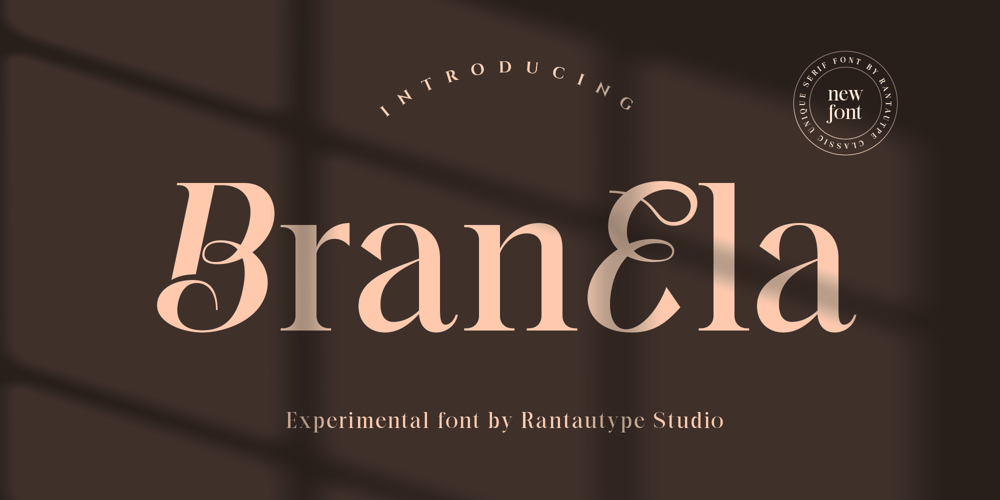
Branela
Branela font
Branela Font Family was designed by Yudi Pratama Chandra and published by RantauType. Branela contains 2 styles and family package options. Branela is a experimental display serif font. Branela come with unique uppercase to mix and max you work more versatility and contemporary appeal.Branela is a beautiful choice for any creative endeavor, chic, lifestyle design such as logos, title, cover, branding, display, magazine and more. Now you have more choice when using Darina for typography.Branela here to make your work to high level!!!Features: Standar letter A-Z and a-z Numberial and Functional Alternate and Ligature Works on PC & Mac Simple installations Accessible in Adobe Illustrator, Adobe Photoshop, Adobe InDesign, even work on Microsoft Word. Fonts include Multilingual Support for: Afrikaans, Albanian, Asu, Basque, Bemba, Bena, Breton, Chiga, Cornish, Dutch, English, Estonian, Filipino, Finnish, Friulian, Galician, Gusii, Indonesian, Irish, Italian, Kabuverdianu, Kalenjin, Kinyarwanda, Luo, Luxembourgish, Luyia, Machame, Makhuwa-Meetto, Makonde, Malagasy, Manx, Morisyen, North, Ndebele, Nyankole, Oromo, Portuguese, Quechua, Romansh, Rombo, Rundi, Rwa, Samburu, Sango, Sangu, Scottish, Gaelic, Sena, Shambala, Shona, Soga, Somali, Spanish, Swahili, Swedish, Swiss, German.Thank you for your purchase!Hope you enjoy with our font!